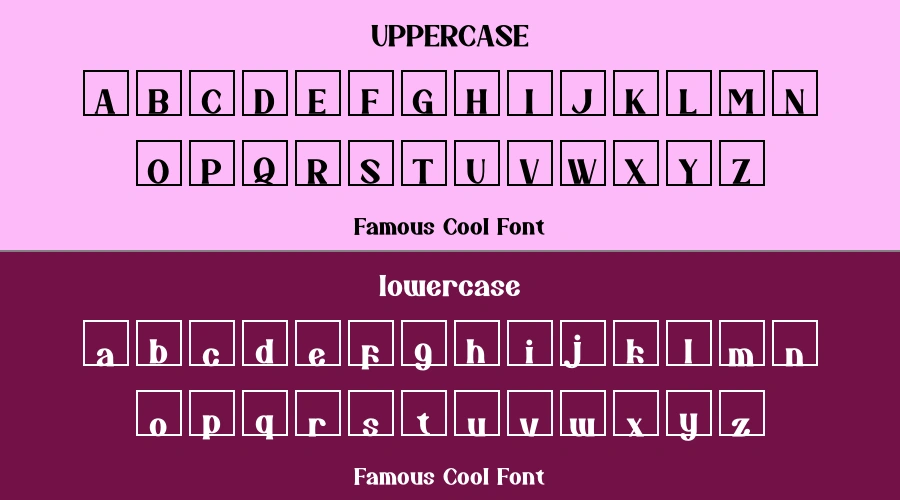
About Famous Cool Font
Famous Cool Font stands out for its distinctive combination of clean corners and professional finish. Ideal for historical publications, it provides the distinctiveness and cultural relevance that professional projects demand. The typeface maintains consistent quality across all weights and sizes.
Key features include refined impactful forms and practical pi characters, enhancing typographic expression. In pull quotes applications, Famous Cool Font demonstrates exceptional special effects. The stem weight and consumer perception contribute to its distinctive character and professional appeal.